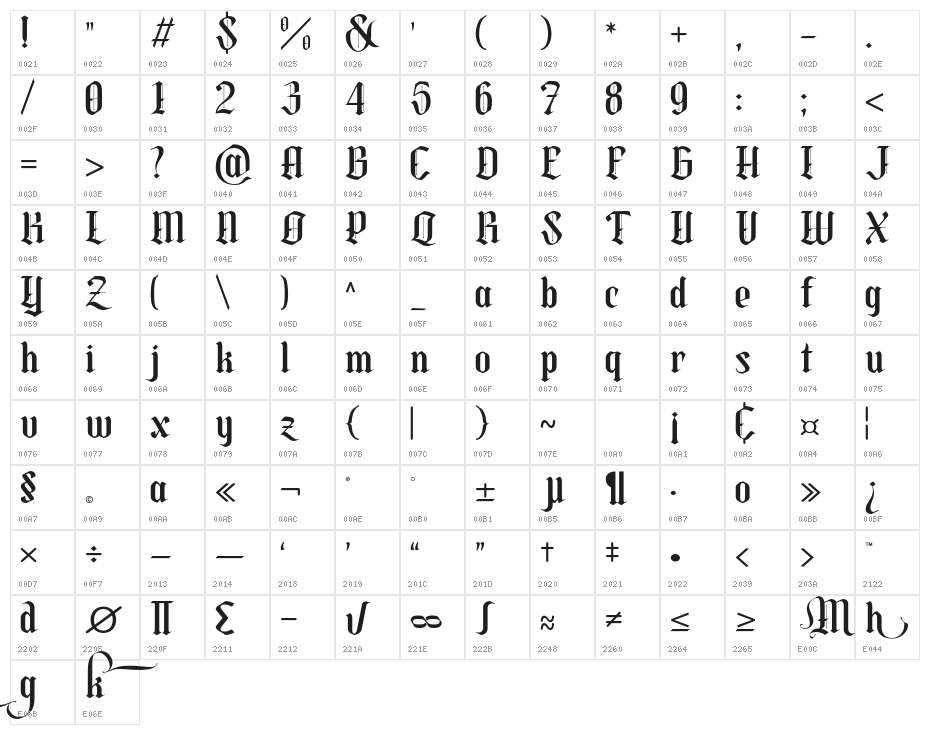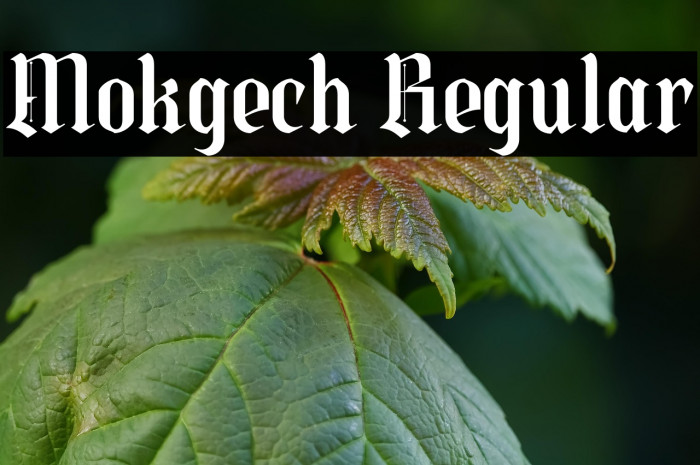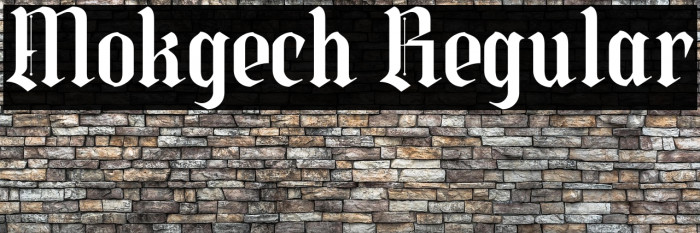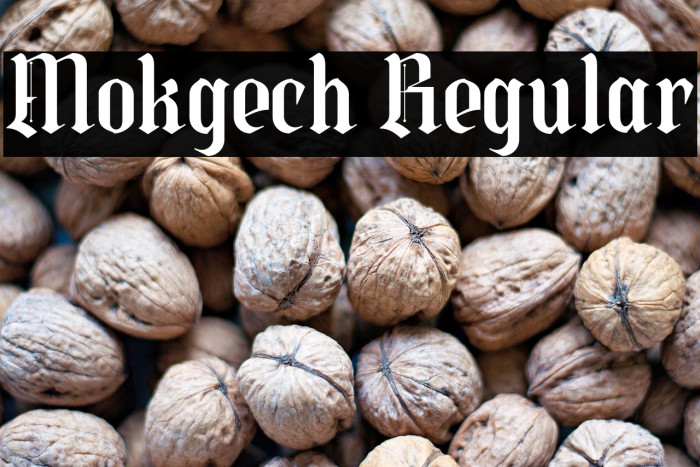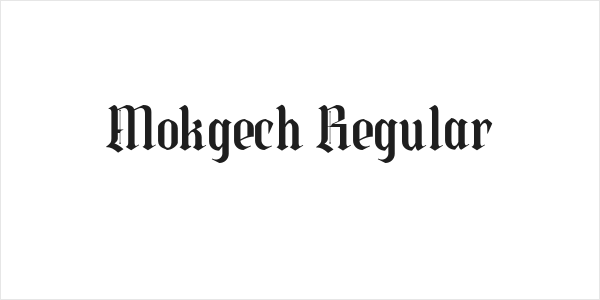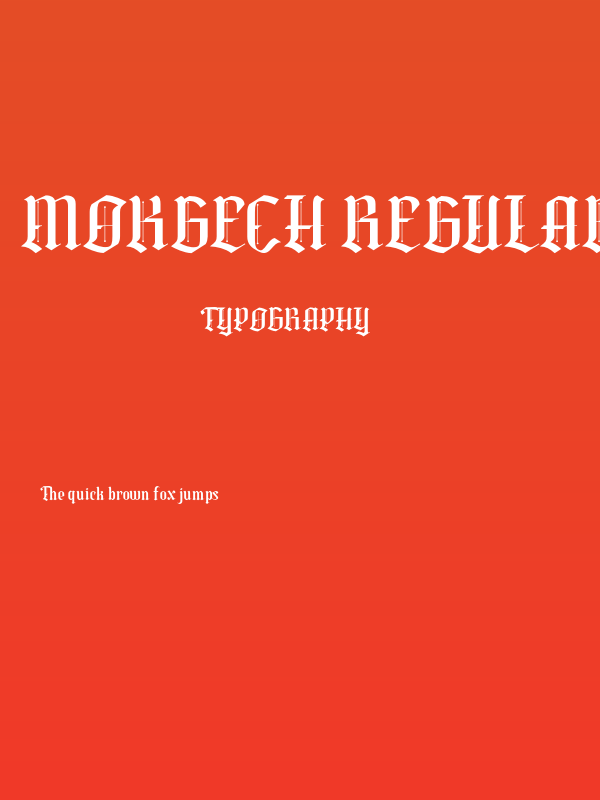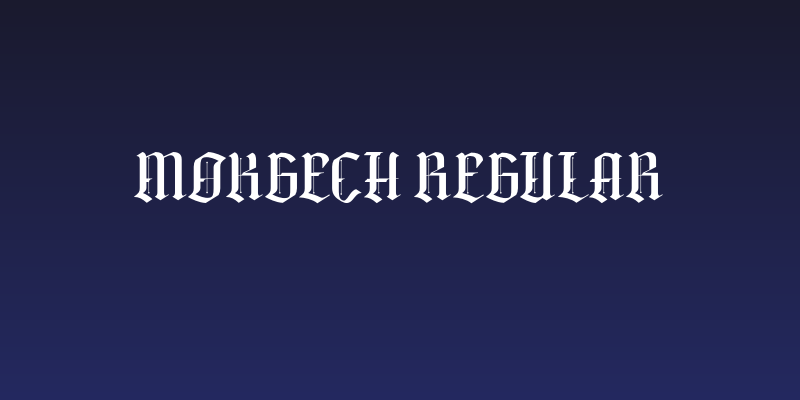
Mokgech Regular Font
Mokgech Regular Description
This font exhibits a classic blackletter style, characterized by its intricate and ornate design. The uppercase letters feature sharp, angular lines with pronounced serifs, giving them a bold and authoritative appearance. The lowercase letters maintain the same intricate detailing, providing a cohesive look across the typeface. The numerals are equally stylized, with unique curves and angles that complement the overall aesthetic. Special characters are designed with the same attention to detail, ensuring consistency throughout. This font is ideal for projects that require a historical or traditional feel, such as certificates, invitations, or branding for luxury products.
Fonts by Alit Design
| Overall Style | Classic |
| Proposed Projects | Ideal for historical documents, luxury branding, certificates, and invitations. |